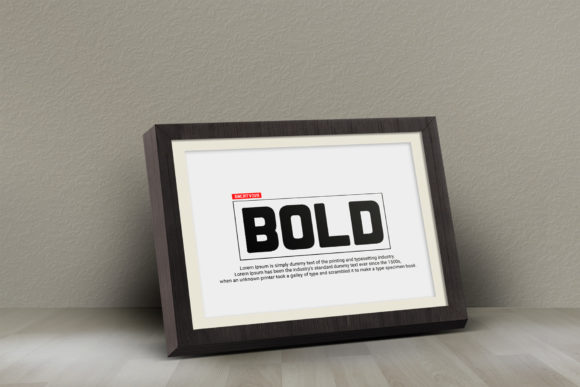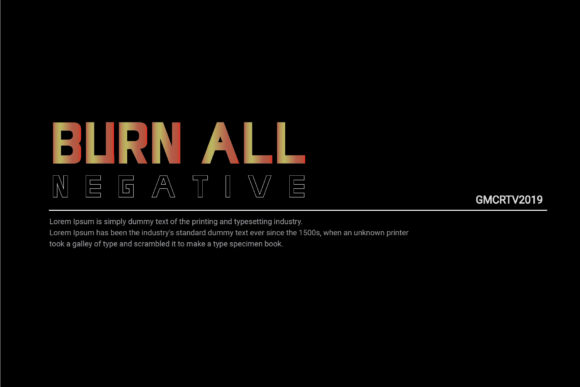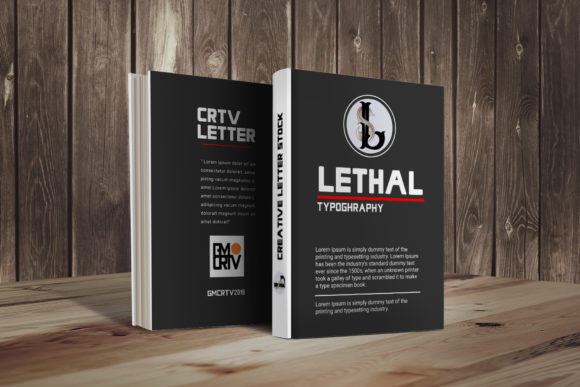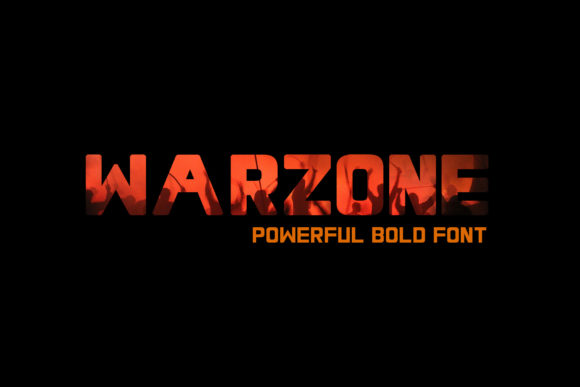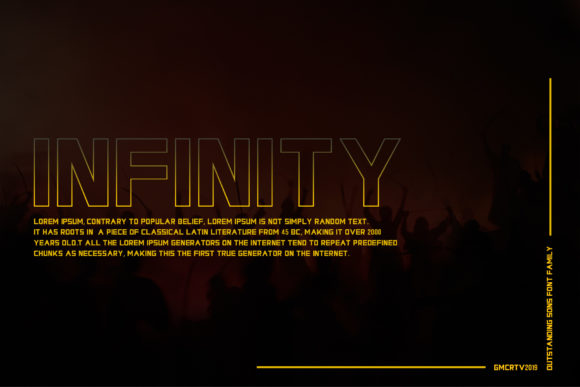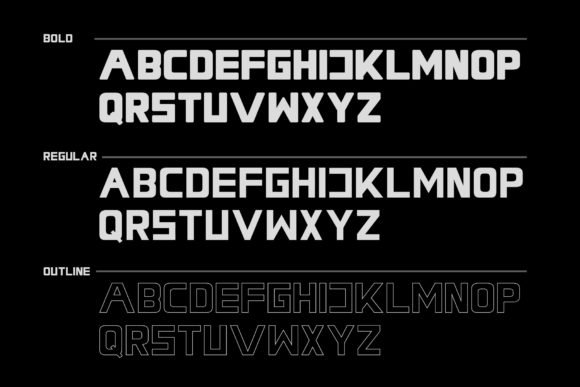
Introduction to Lethal Family Font Font
Fonts play a crucial role in design, and the Lethal Family Font font is a typeface that brings both character and versatility to any project. Whether you’re working on a branding project, a website, or a print design, the Lethal Family Font font offers a unique style that can elevate your work.
The Lethal is a strong and sophisticated family.
It was inspired by superhero movie posters with strong and striking looks Itβs perfect to use with a metal effect, especially for the bold version.
Key Features of Lethal Family Font Font
Why Choose Lethal Family Font Font?
The Lethal Family Font font is more than just a typeface β it’s a design tool that helps you communicate your message with style and clarity. Its unique character set and versatile design make it suitable for a wide range of applications, from elegant invitations to bold headlines.
With its carefully crafted letterforms and balanced proportions, the Lethal Family Font font ensures readability and visual appeal across all mediums.
What makes Lethal Family Font font special?
The Lethal Family Font font stands out with its unique design, exceptional readability, and versatility across various design applications.